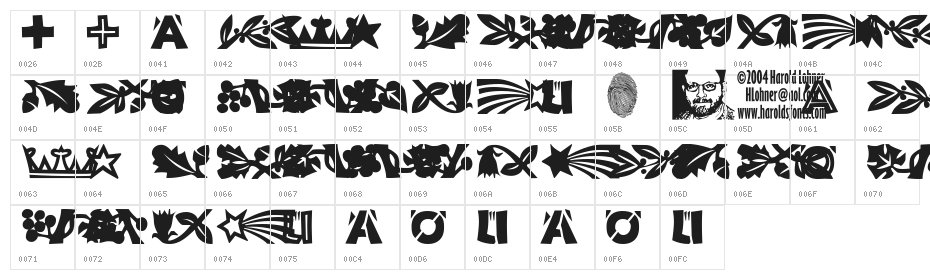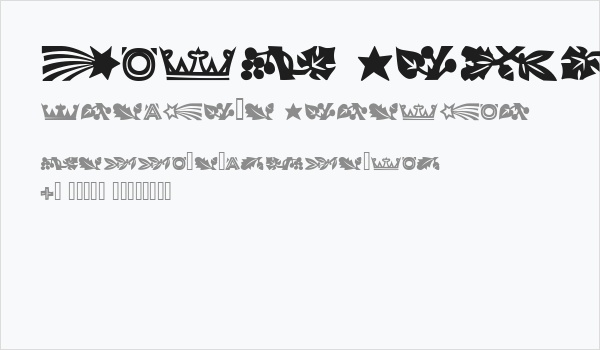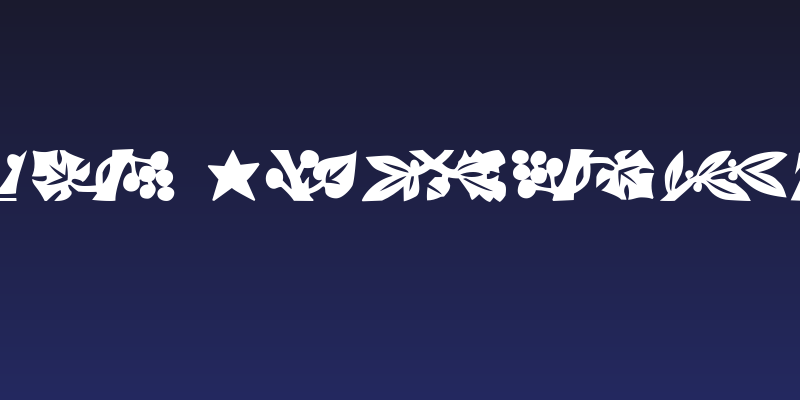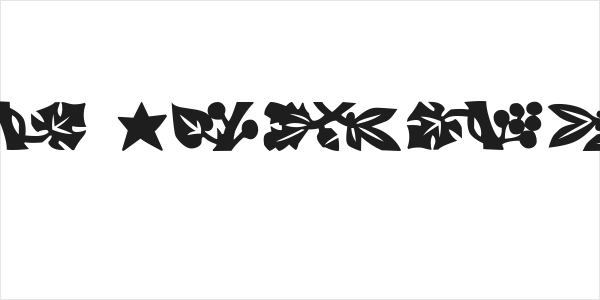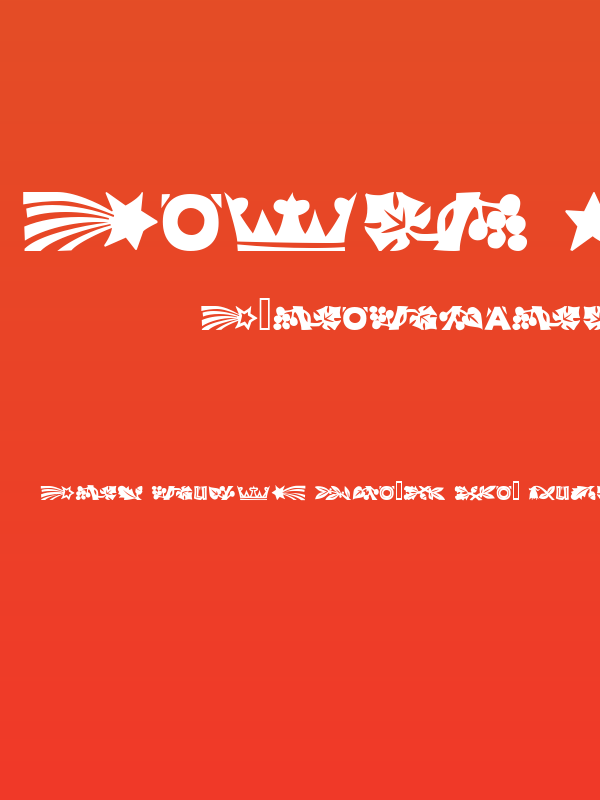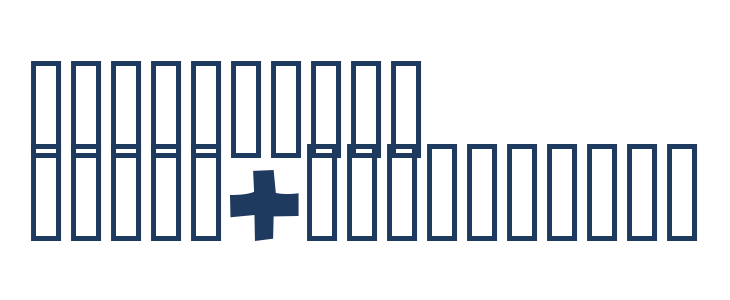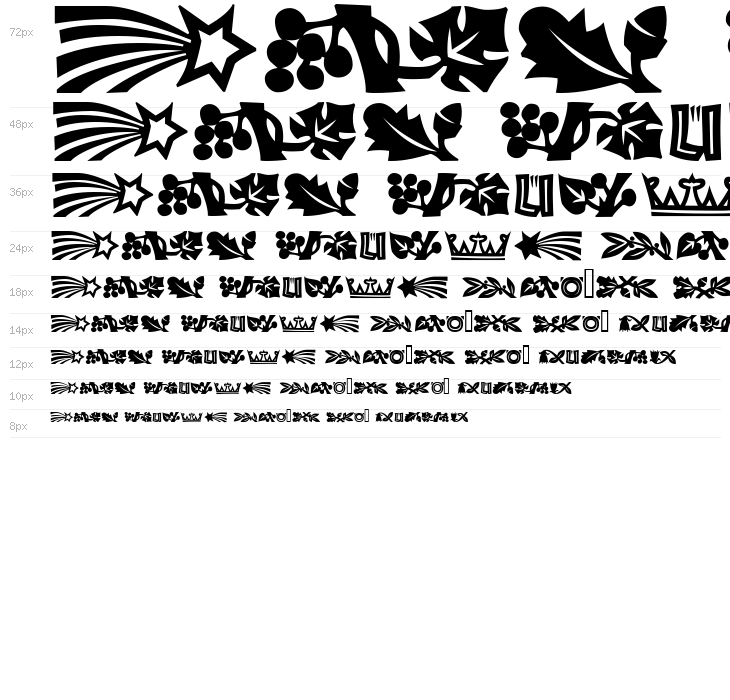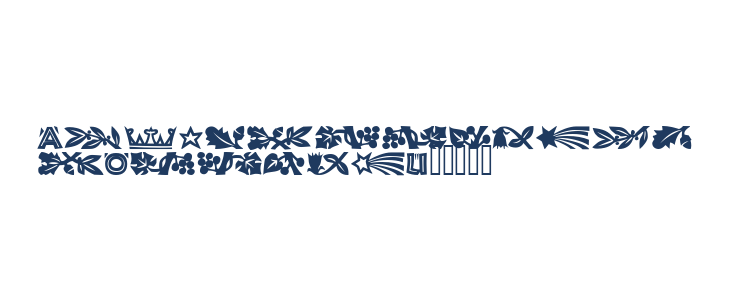
Koch Dingbats Font
Koch Dingbats Description
This is a decorative font featuring an array of intricate symbols and ornaments. Each character is uniquely designed with elements resembling crowns, stars, leaves, and abstract shapes, creating a whimsical and artistic appearance. The font is highly stylized, with each symbol crafted to stand out as a distinct piece of art. The characters are bold and have a strong visual presence, making them suitable for creative and decorative purposes. The overall design is reminiscent of traditional dingbats, offering a variety of shapes that can be used to embellish text or create unique patterns.
| Use Case | Logos, Artistic designs, Decorative borders |
| Proposed Projects | Ideal for creating decorative borders, artistic designs, invitations, and unique branding elements. |